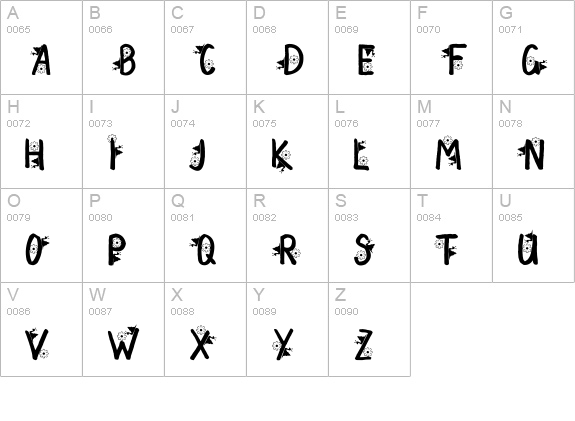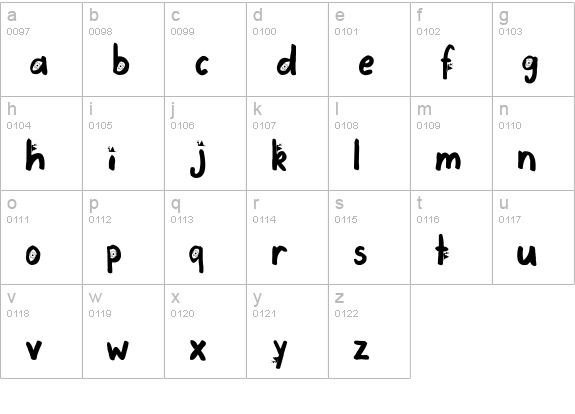
Escargots Font Details
Introducing Escargots font, a unique and whimsical typeface that will add a touch of elegance and flair to your projects. With its delicate curves and stylish appearance, Escargots font is perfect for creating eye-catching designs that stand out from the crowd. Whether you're working on invitations, branding, or any other creative project, this font is sure to make a statement. The best part? Escargots font is completely free to download at FontsMarket.com. That's right, you can access this stunning font at no cost and use it in your personal or commercial projects with ease. So why wait? Give your designs a sophisticated and charming touch with Escargots font today! Get your hands on this beautiful font and elevate your design game to new heights. Download Escargots font now for free at FontsMarket.com and let your creativity shine!